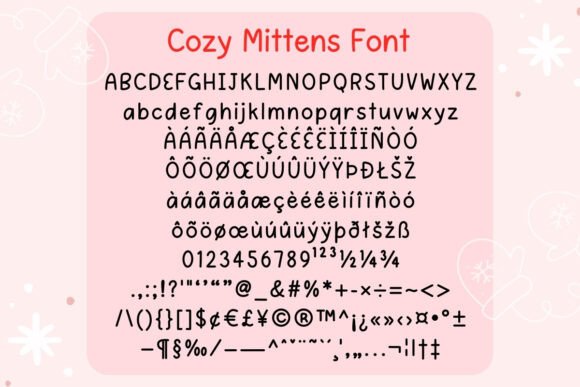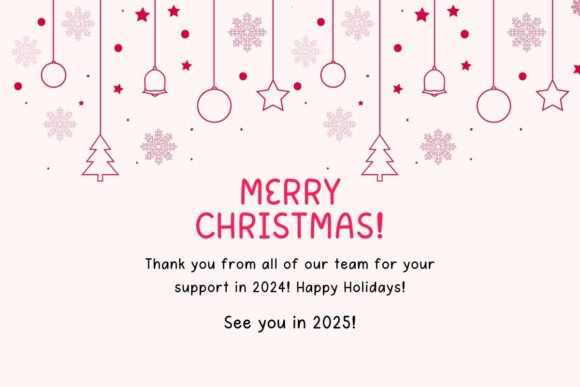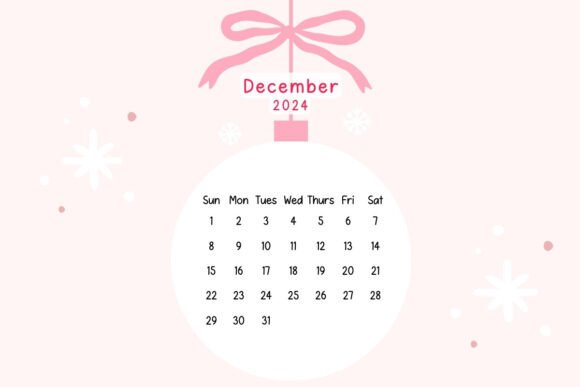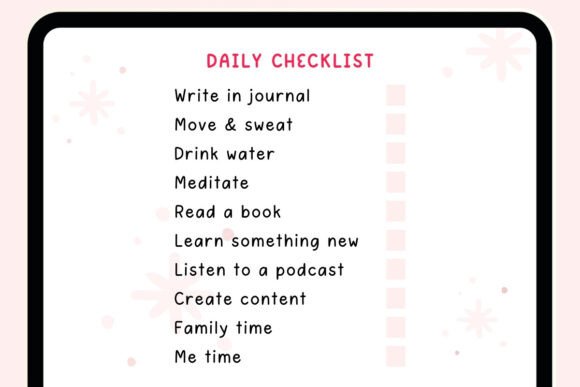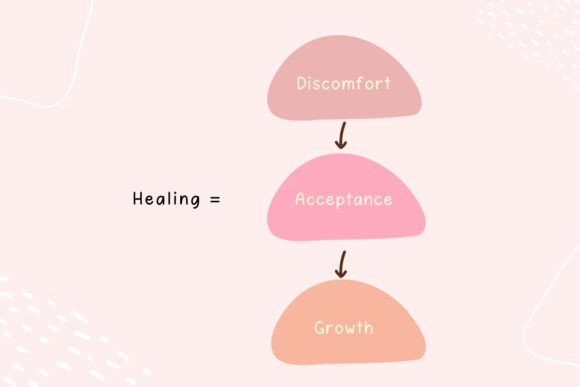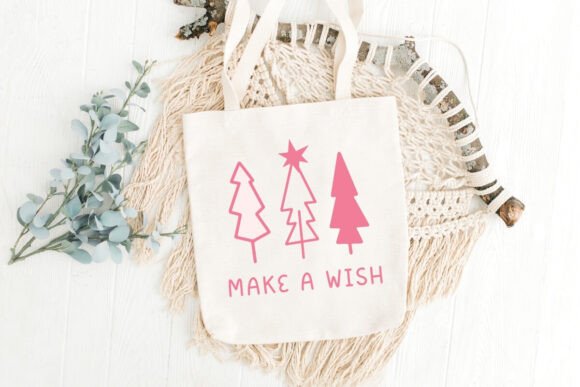
Cozy Mittens Font: Add a Touch of Christmas Magic to Your Designs
Are you looking for a font that captures the warmth and charm of the holiday season? Look no further than Cozy Mittens, a delightful handwriting font with a Christmas theme that’s perfect for kids and creative projects. This versatile font is ideal for a wide range of applications, from school notes and student assignments to digital planners, festive crafts, and more.
A Neat, Clean, and Tidy Handwriting Font
Cozy Mittens is a neat, clean, and tidy handwriting font that’s sure to impress. Its polished and playful style adds a warm, cozy feel to your holiday creations, making it perfect for personal or professional use. Whether you’re a designer, teacher, or crafter, this font is sure to become a favorite in your toolkit.
Perfect for Kids and Creative Projects
Cozy Mittens is a font that’s specifically designed with kids and creative projects in mind. Its charming Christmas theme and playful style make it perfect for school notes, student assignments, and festive crafts. Whether you’re creating a holiday-themed worksheet, a Christmas card, or a festive decoration, Cozy Mittens is the perfect choice.
Versatile and Easy to Use
One of the best things about Cozy Mittens is its versatility. This font can be used for a wide range of applications, including:
- School notes and student assignments
- Digital planners and GoodNotes
- Procreate designs and Canva projects
- Festive crafts and holiday decorations
Add a Touch of Christmas Magic to Your Designs
Cozy Mittens is more than just a font – it’s a way to add a touch of Christmas magic to your designs. With its charming holiday theme and playful style, this font is sure to bring a smile to the faces of everyone who sees it. Whether you’re creating a festive decoration, a holiday card, or a Christmas-themed worksheet, Cozy Mittens is the perfect choice.
Why Choose Cozy Mittens?
So why choose Cozy Mittens over other fonts? Here are just a few reasons:
- Unique and charming design: Cozy Mittens has a unique and charming design that’s sure to stand out from the crowd.
- Versatile and easy to use: This font is versatile and easy to use, making it perfect for a wide range of applications.
- Perfect for kids and creative projects: Cozy Mittens is specifically designed with kids and creative projects in mind, making it perfect for school notes, student assignments, and festive crafts.
- Polished and playful style: This font has a polished and playful style that adds a warm, cozy feel to your holiday creations.
In conclusion, Cozy Mittens is a neat, clean, and tidy handwriting font with a charming Christmas theme that’s perfect for kids and creative projects. Its versatile and easy-to-use design makes it ideal for a wide range of applications, from school notes and student assignments to digital planners, festive crafts, and more. With its polished and playful style, Cozy Mittens is sure to add a warm, cozy feel to your holiday creations, making it perfect for personal or professional use. So get Cozy Mittens today and start creating!